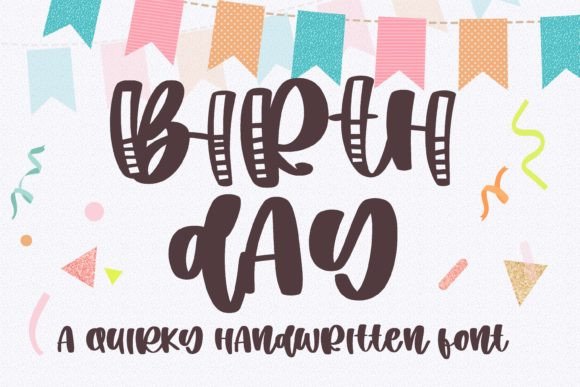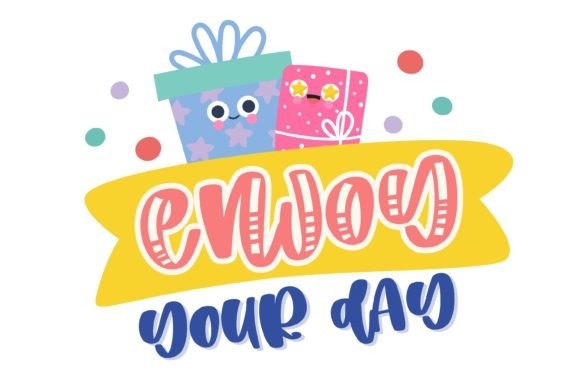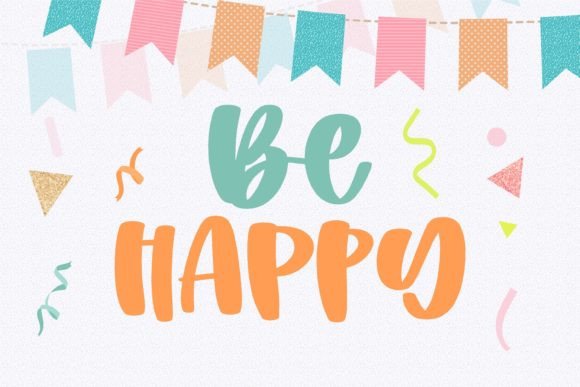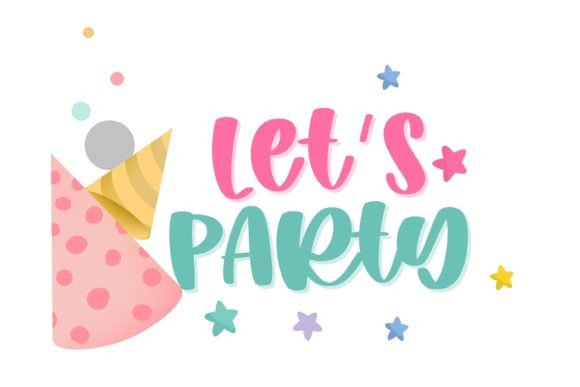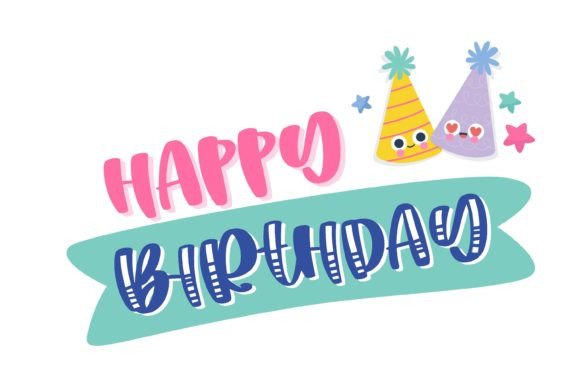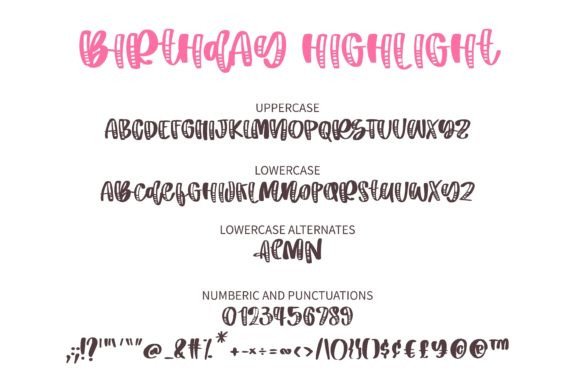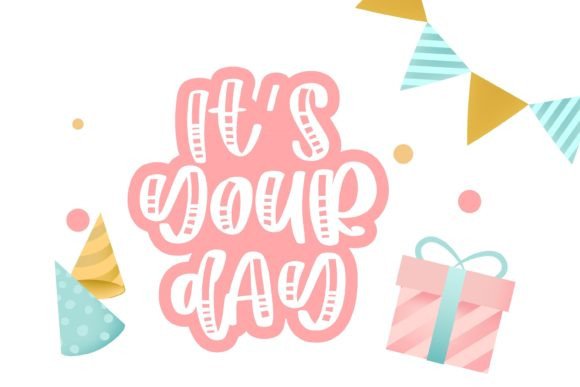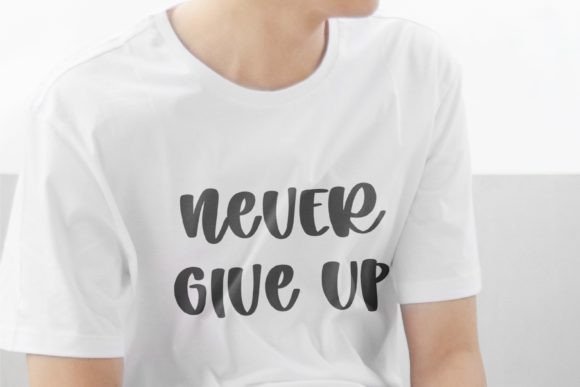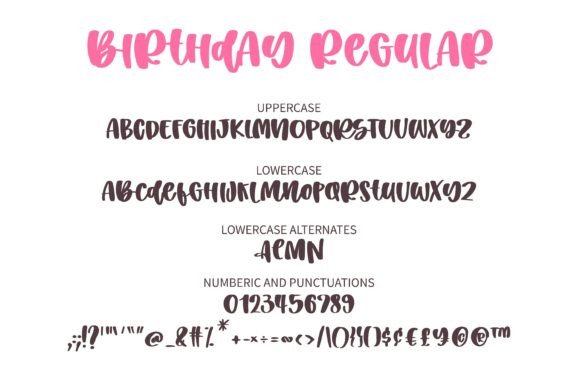
Birth Day Font
About Birth Day Font
Birth Day is a charming and adorable handwritten font that captures a sweet and cute aesthetic. Its versatility shines through, making it an excellent choice for a wide range of design applications. Whether you’re creating gorgeous wedding invitations, beautiful stationery art, or eye-catching social media posts, Birth Day’s lovable style is sure to captivate your audience and infuse your designs with a delightful charm.
The sweetness of Birth Day is evident in its handcrafted letterforms, adding a touch of authenticity and warmth to your designs. This makes it particularly well-suited for creating wedding invitations that carry a romantic and endearing vibe.
In stationery art, Birth Day’s cute handwritten style enhances the visual appeal, making your designs stand out with a personalized and charming touch. Its adaptability ensures that it can seamlessly integrate into various stationery projects, from cards to notepads.
For social media posts, Birth Day brings a playful and eye-catching element, making your content more engaging and shareable. Its versatility allows it to suit a variety of social media platforms, adding a touch of cuteness to your online presence.
The incredibly versatile style of Birth Day opens up creative possibilities for a range of projects. Whether you’re working on invitations, branding materials, or any other design endeavor, Birth Day’s cute and sweet demeanor ensures that it adds a lovable touch to your creations.
In summary, Birth Day is not just a font; it’s a design companion that brings sweetness and versatility to your creative projects. Whether you’re celebrating love with wedding invitations or crafting delightful stationery and social media content, Birth Day’s cute handwritten style makes it a charming choice for adding a touch of loveliness to your designs.